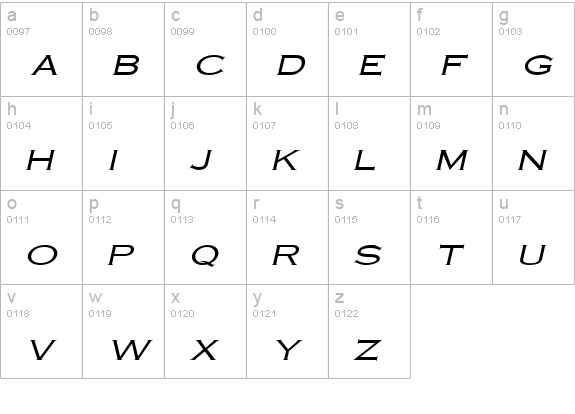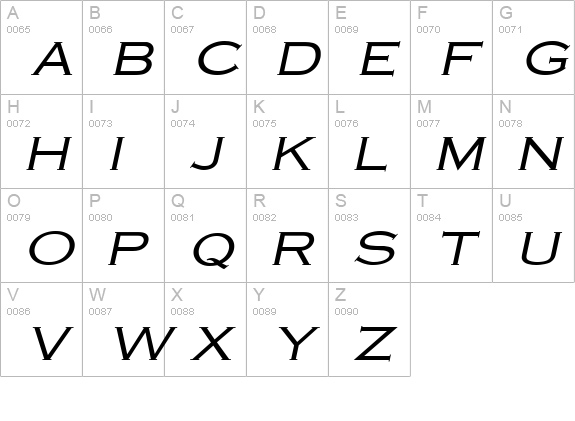
Cobalt Wide Italic Font Details
Cobalt Wide Italic is a distinctive, extended-width, italic variant in the Cobalt typeface family \xE2\x80\x94 well suited to design and typography projects.
Introducing Cobalt Wide Italic font, a sleek and modern typeface that exudes sophistication and style. Its elegant italic style adds a touch of flair to any design project, making it perfect for branding, headlines, and creative displays. This stunning font features wide letterforms with a subtle slant, creating a unique and eye-catching look. The clean lines and smooth curves of Cobalt Wide Italic make it easy to read while still maintaining a sense of elegance and refinement. Best of all, Cobalt Wide Italic is available for free download at FontsMarket.com. Whether you're a designer looking to add a touch of sophistication to your projects or a business owner seeking a stylish font for your branding, Cobalt Wide Italic is the perfect choice. Download it today and elevate your designs with this beautiful and versatile typeface.